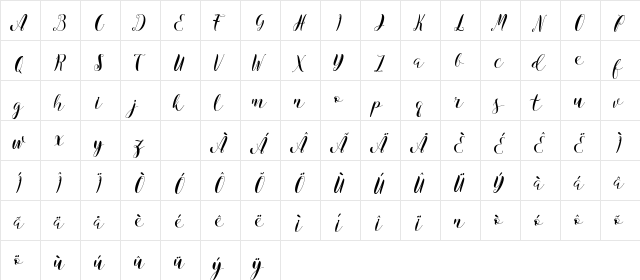
Virgina Regular
Design Context for Virgina Typeface
Virgina is a composed and adaptable typeface that performs quietly and consistently across a wide range of design contexts.